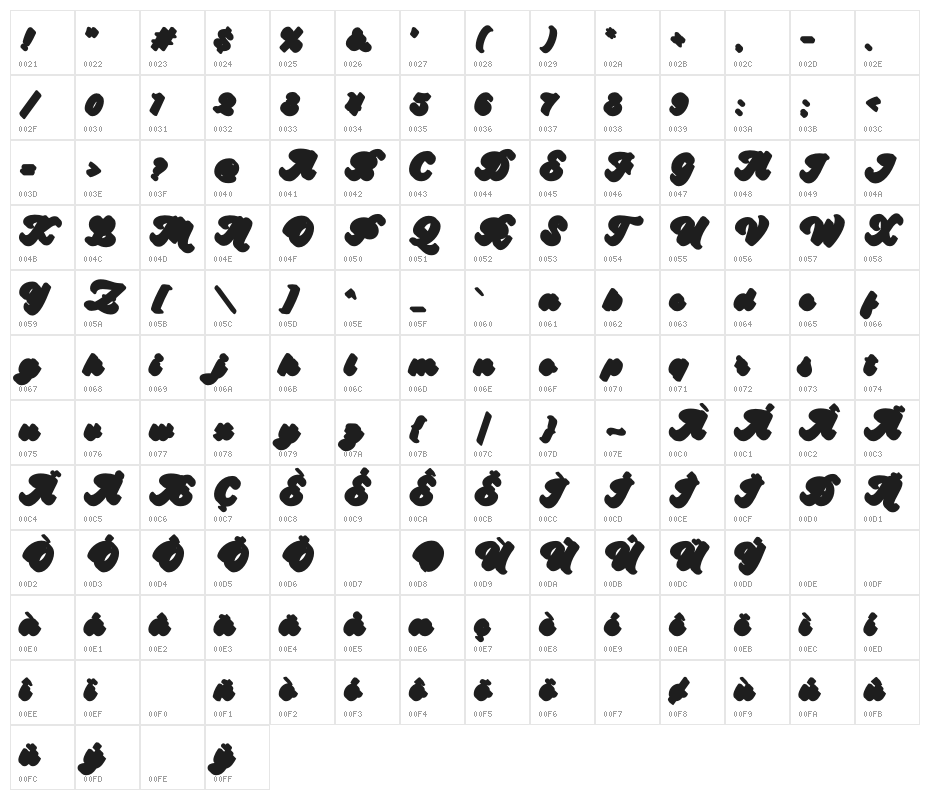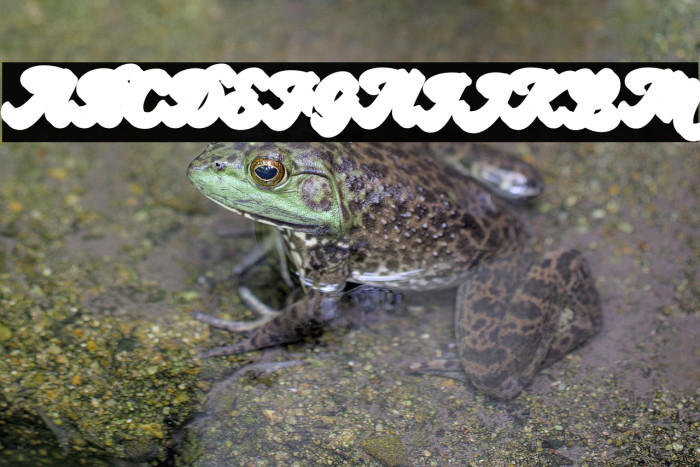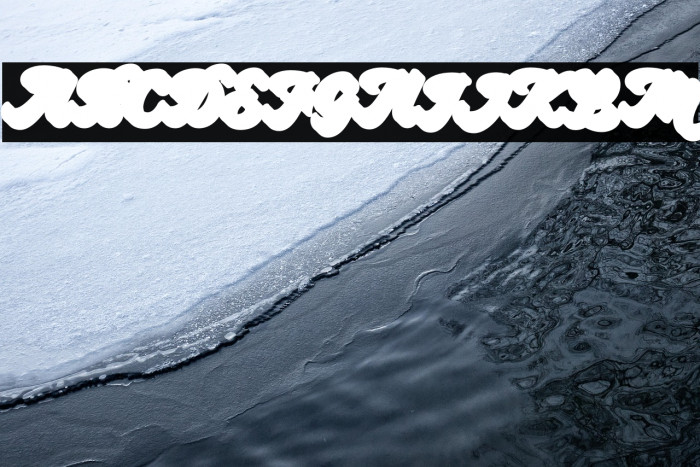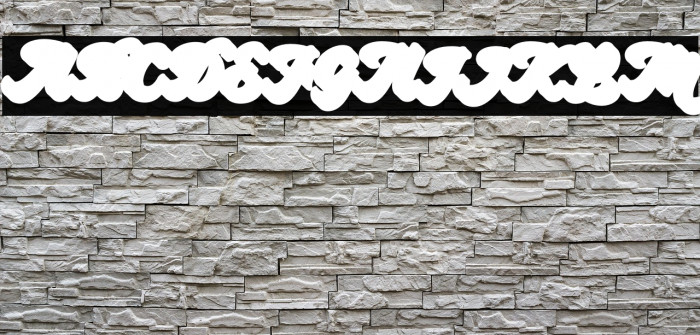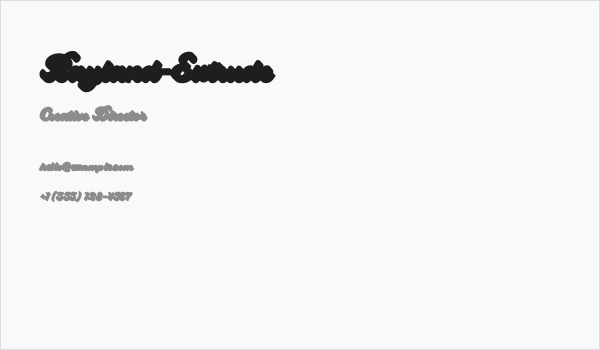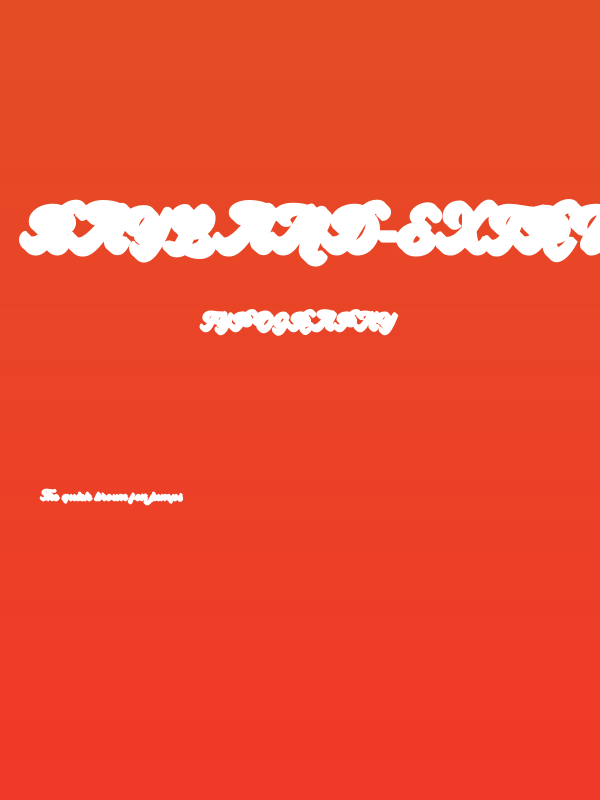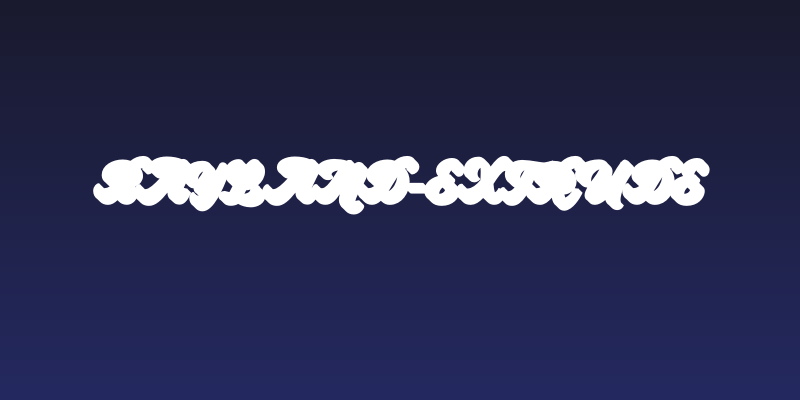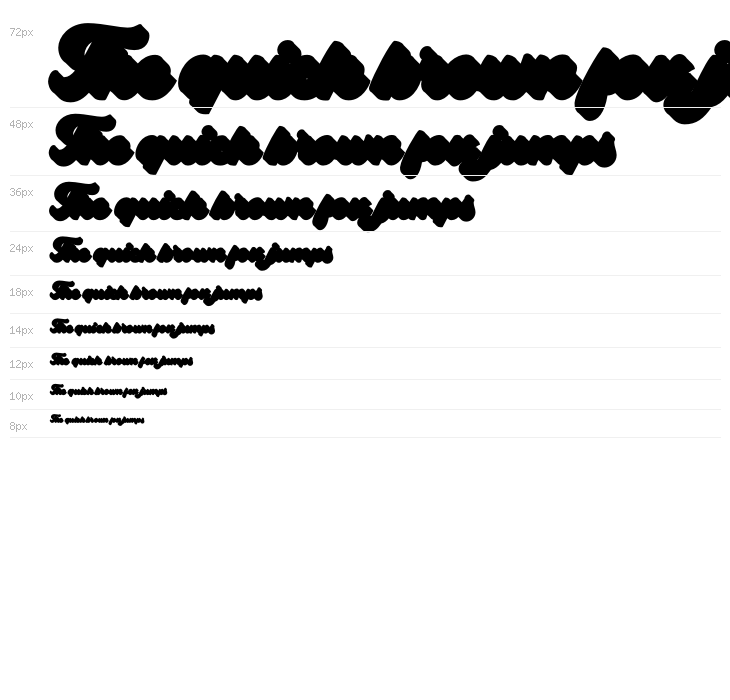
Bayland-Extrude Font
Bayland-Extrude Description
This font features a bold, extruded style with a playful and dynamic appearance. The characters are interconnected, creating a flowing script that exudes energy and movement. The thick strokes and rounded edges give it a friendly and approachable feel, while the extruded effect adds depth and dimension. This font is highly decorative, making it ideal for eye-catching designs. The uppercase and lowercase letters maintain a consistent style, with a slight slant that enhances its lively character. The numbers and special characters are equally bold and maintain the overall aesthetic, ensuring a cohesive look across all elements.
| Proposed Projects | Ideal for branding, posters, headlines, and any project requiring a bold, decorative touch. |